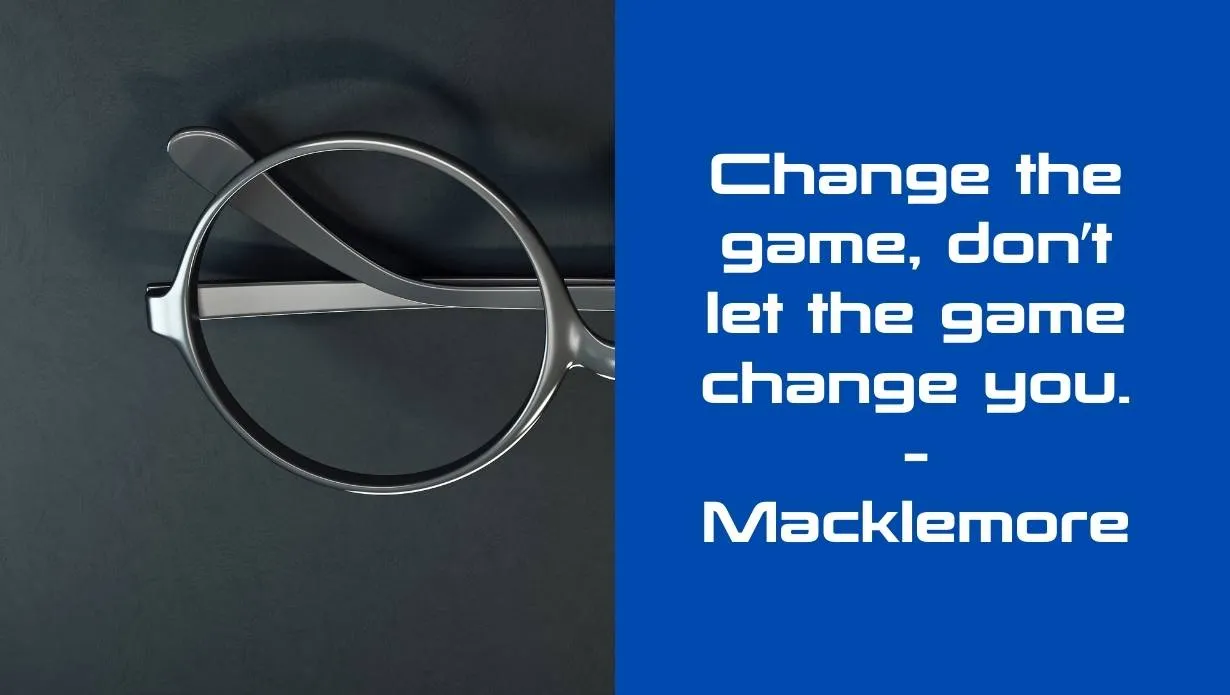
In this post, we are consulting on a very popular and stylish typeface that goes by the name Mass Effect Font. It was developed and published by KitaleBoy. It belongs to the Geometric Sans Serif typeface. This tremendous typeface was designed for use in the Logo of a popular gaming company. It is best for Adobe.
The first thing that anyone notices in the Mass Effect Font are its very thick strokes. The second most prominent feature of this font is the complete absence of any decorative elements whatsoever. Steam Logo Font is similar to this typeface.
Mass Effect Font Family
| Name | Mass Effect Font |
| Designer | KitaleBoy |
| Style | Sans seirf |